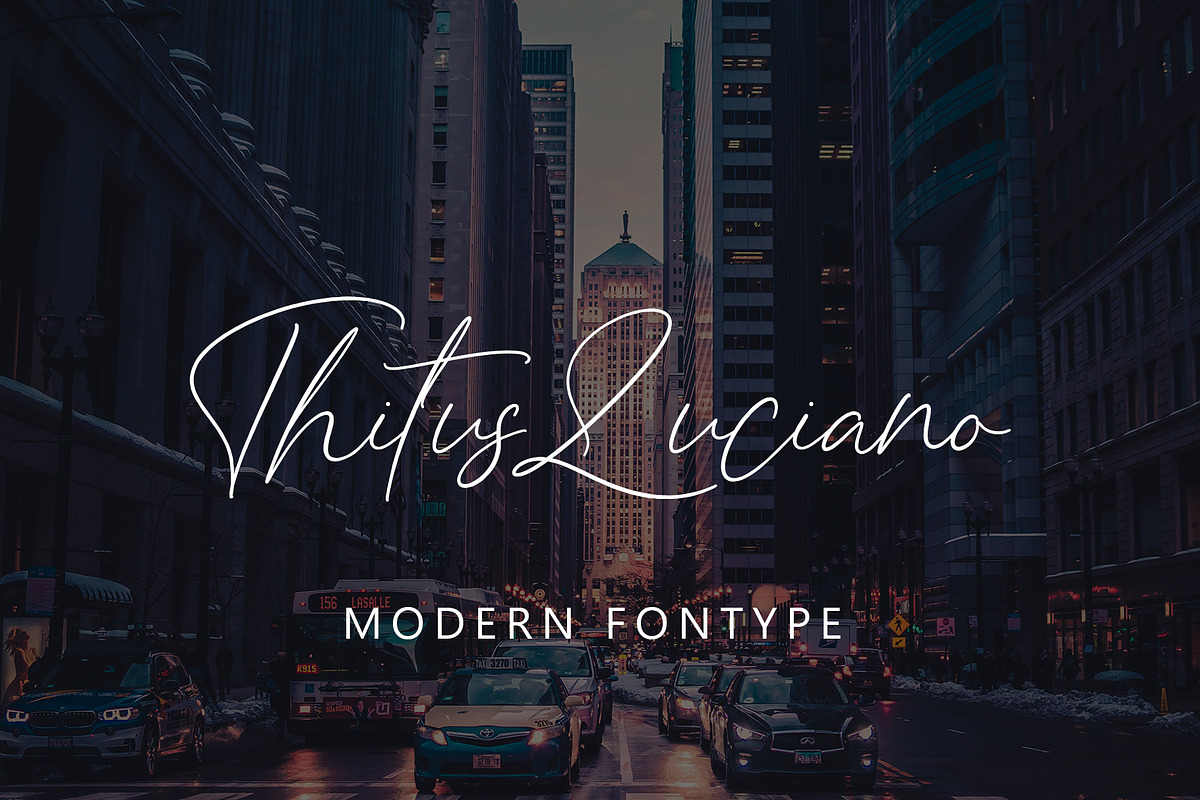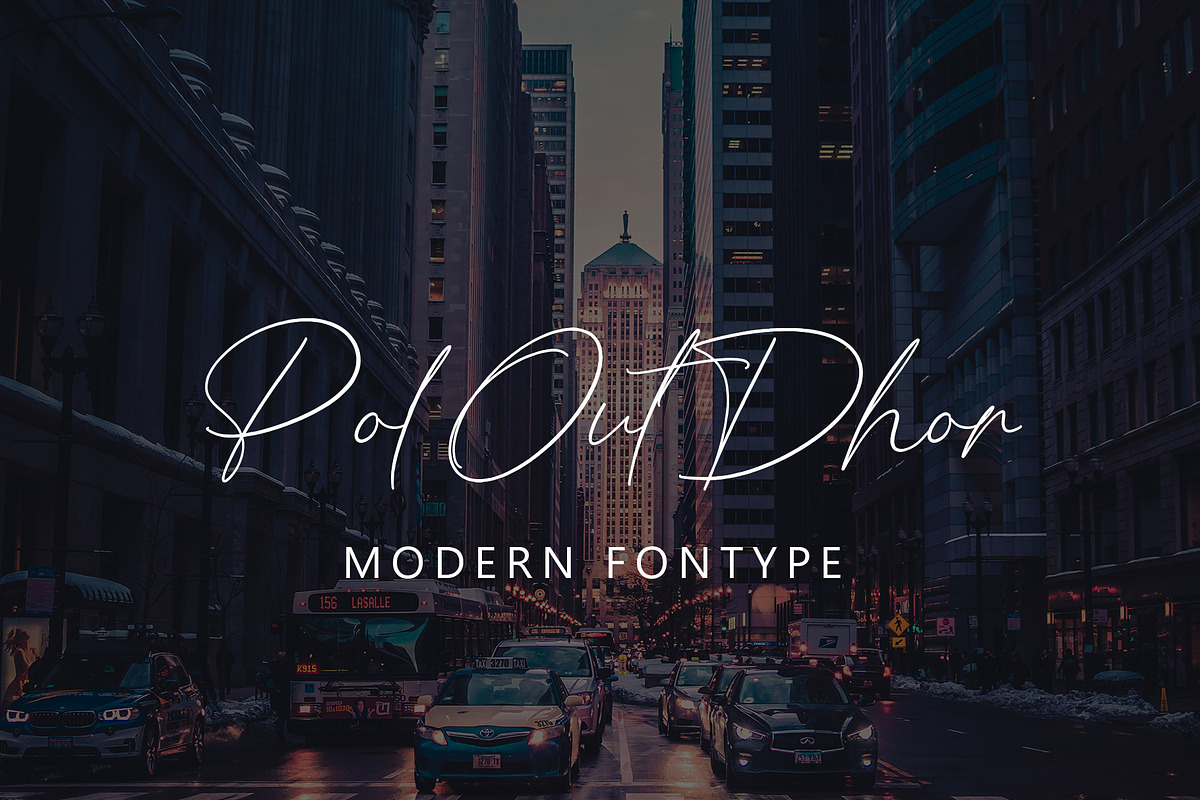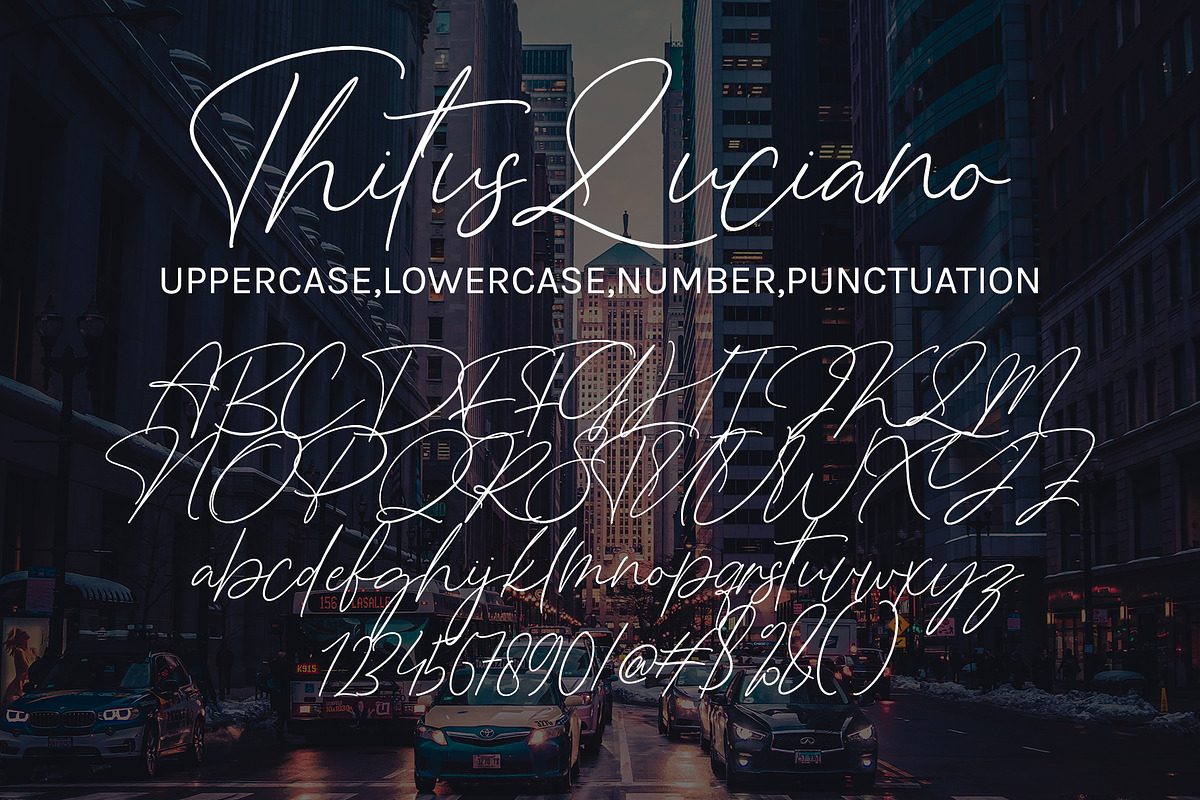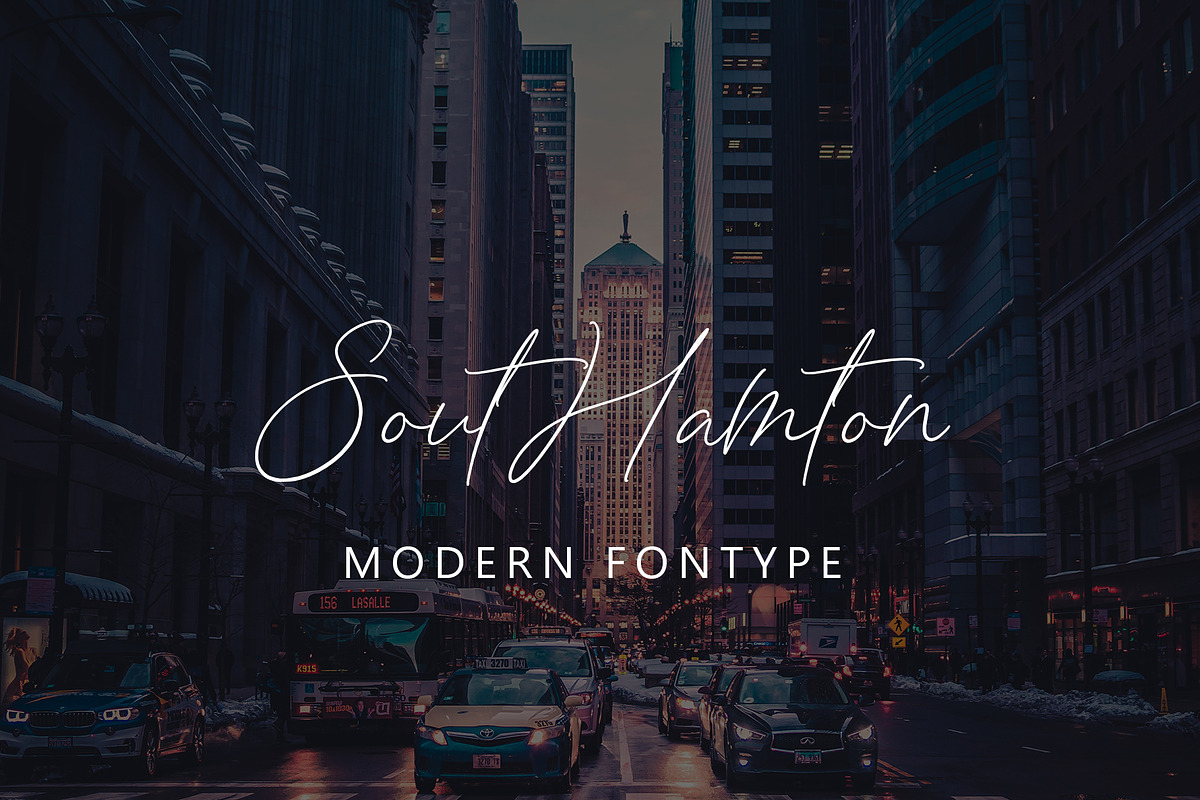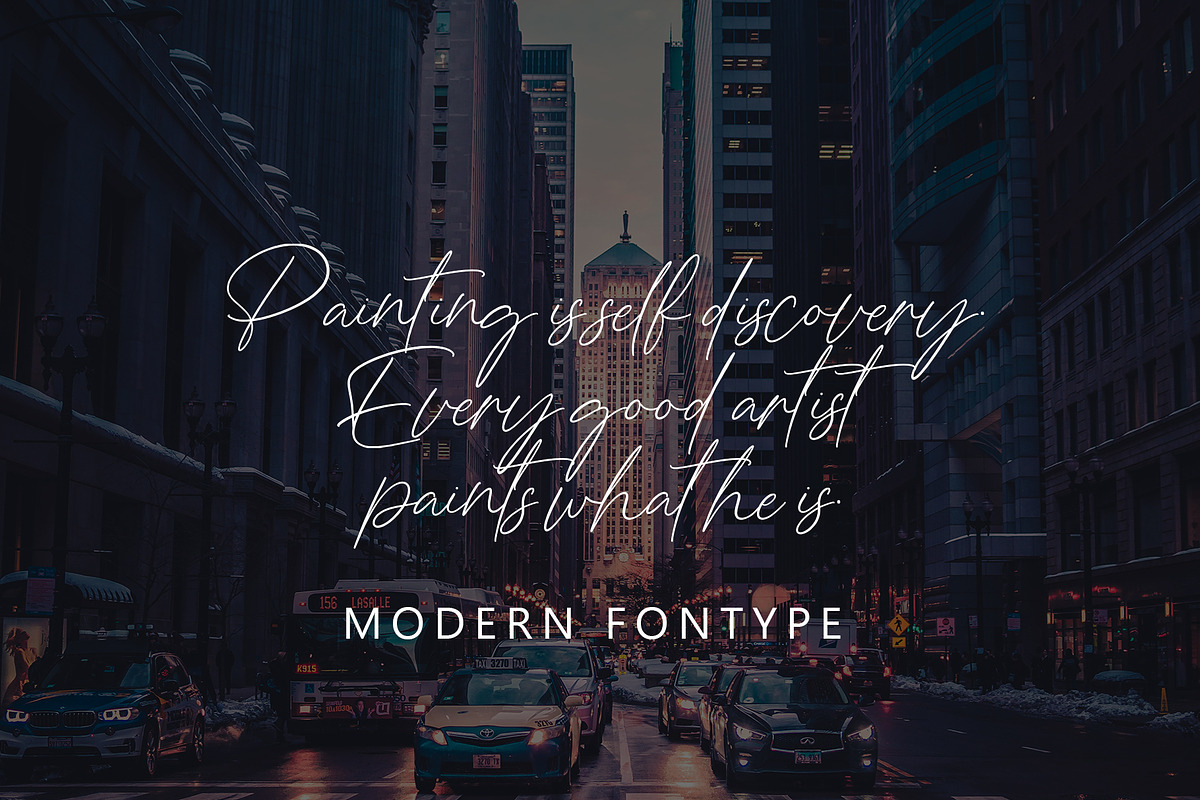
Titus Luciano
Titus Luciano with new style, this font will perfect for many different project ex: quotes, logo, blog header, poster, banding, letter, invitation, stationery, etc...